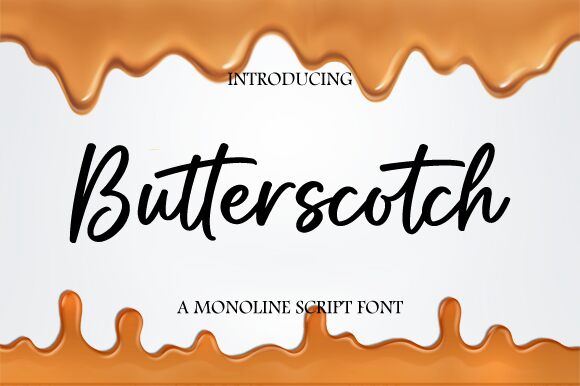
Butterscotch, designed by Graphix Line Studio, is a semi-light handwritten font that exudes delicacy and elegance. With its flowing and beautiful characters, Butterscotch is the perfect choice for projects that require a touch of sophistication.
Its versatile nature allows it to be used in various design contexts, including wedding invitations, luxury branding, or editorial layouts. Whether you're aiming for a romantic feel or a refined look, Butterscotch will elevate your designs with its well-balanced charm.
Let this graceful font add a touch of class and allure to your next creative endeavor.